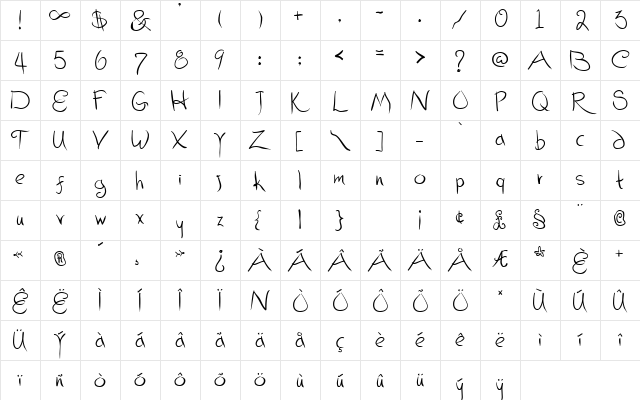
Christmas Regular Free Font
Christmas Regular
Christmas Family
Christmas Regular
Design Context for Christmas
Christmas is a composed and adaptable typeface that performs quietly and consistently across a wide range of design contexts.